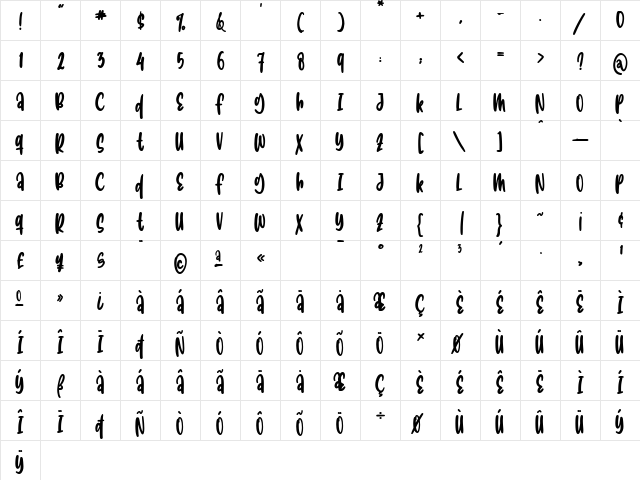
Sandroe Regular
Design Context for Sandroe Typeface
Sandroe is a composed and adaptable typeface that performs quietly and consistently across a wide range of design contexts.